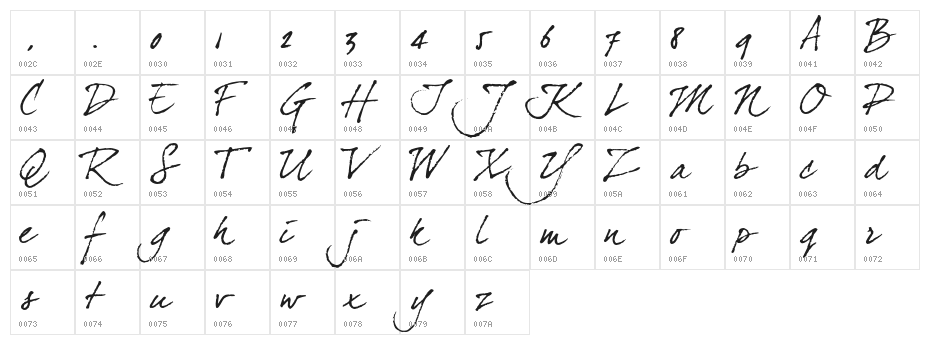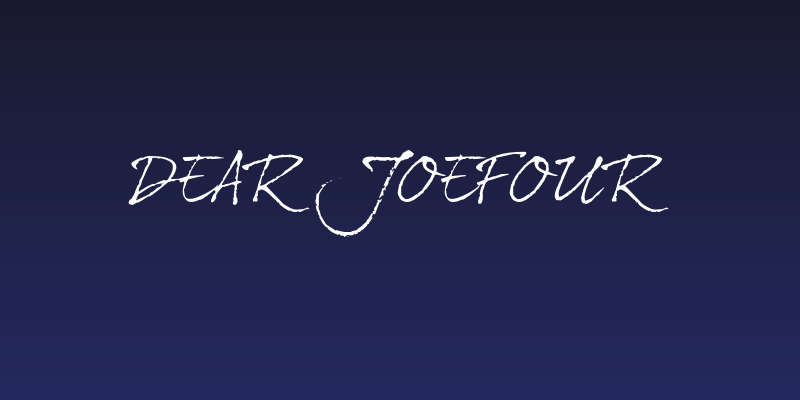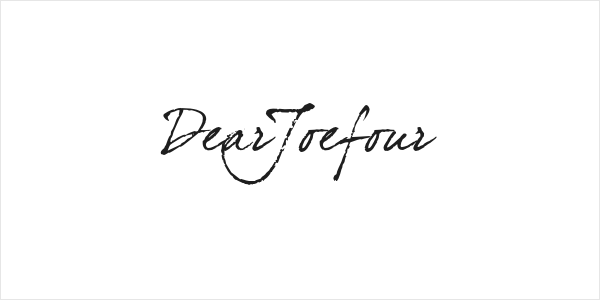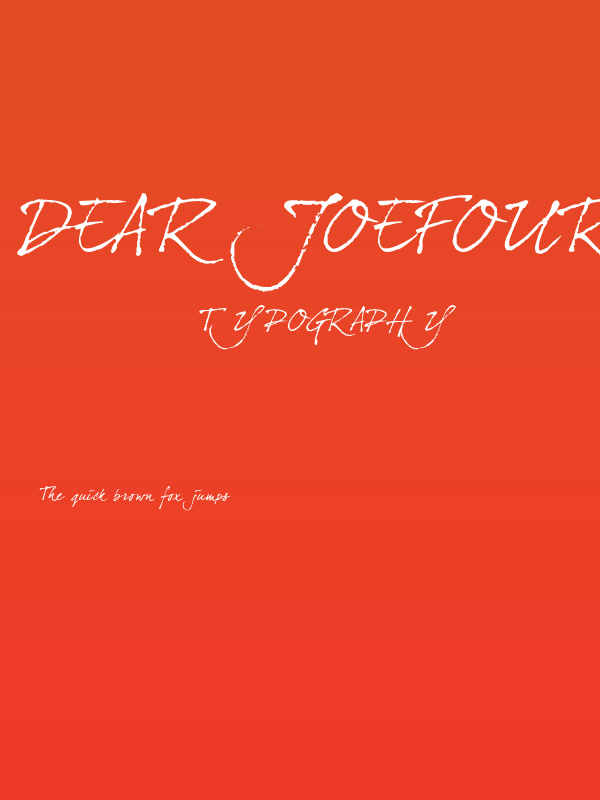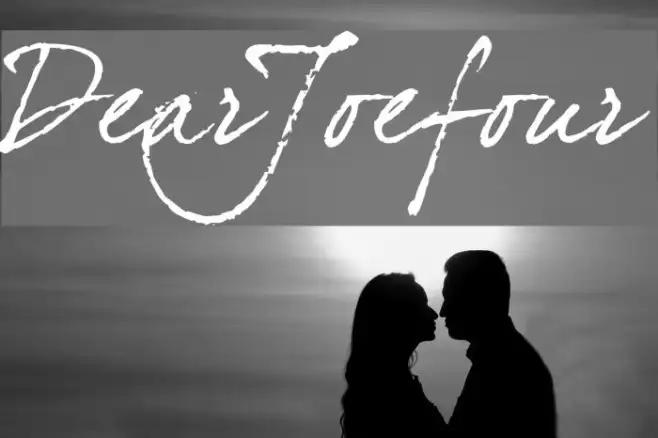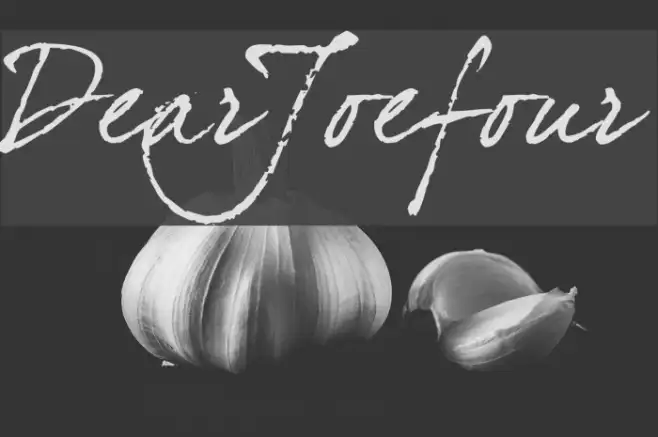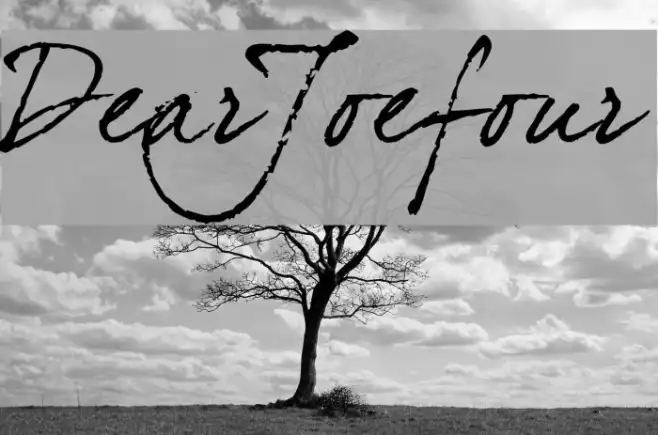
DearJoefour Font
DearJoefour Description
This font exudes a handwritten, cursive style that mimics the fluidity and spontaneity of natural handwriting. The letters are connected with smooth, flowing strokes, giving it an elegant and personal touch. The uppercase letters are slightly more formal, while the lowercase letters maintain a casual, approachable feel. The numbers and special characters are consistent with the overall style, ensuring a cohesive look. The strokes vary in thickness, adding a dynamic and lively appearance. This font is perfect for projects that require a personal or artistic touch, such as invitations, greeting cards, or personal branding.
DEARJOEFOUR UPPERCASE
DEARJOEFOUR LOWERCASE
DEARJOEFOUR OTHER CHARS